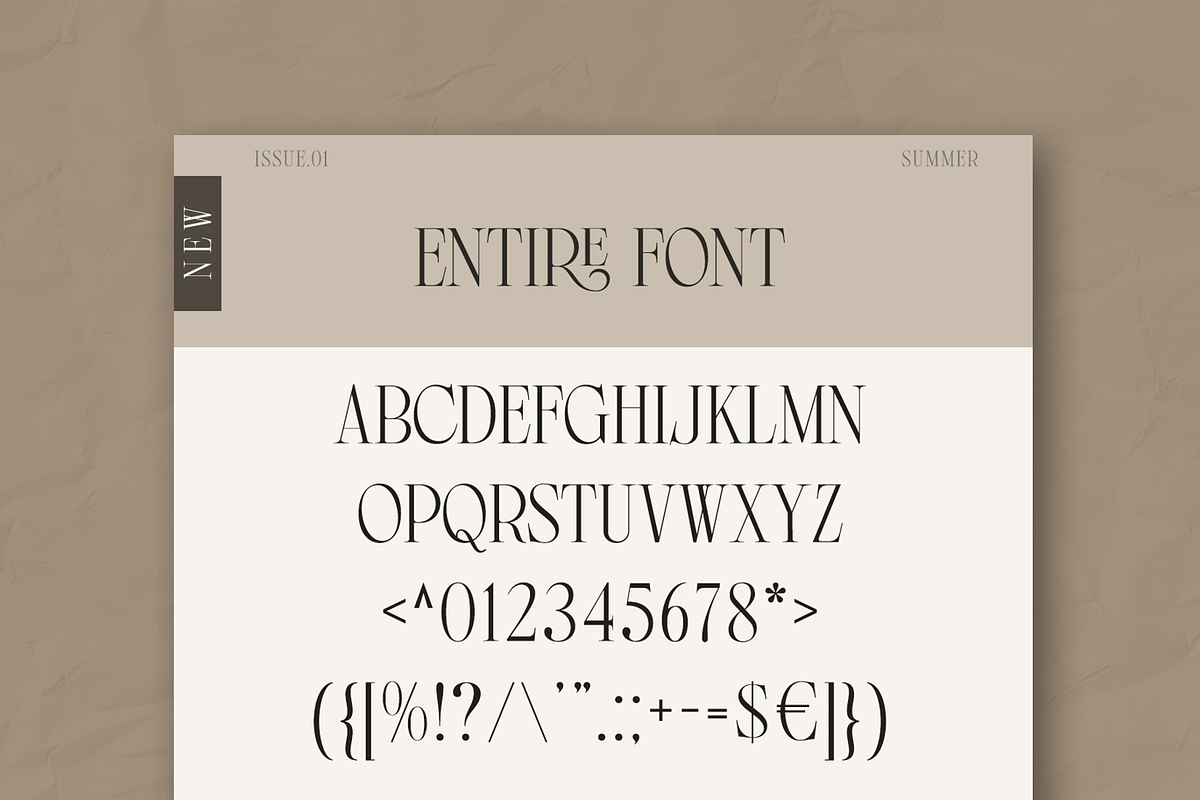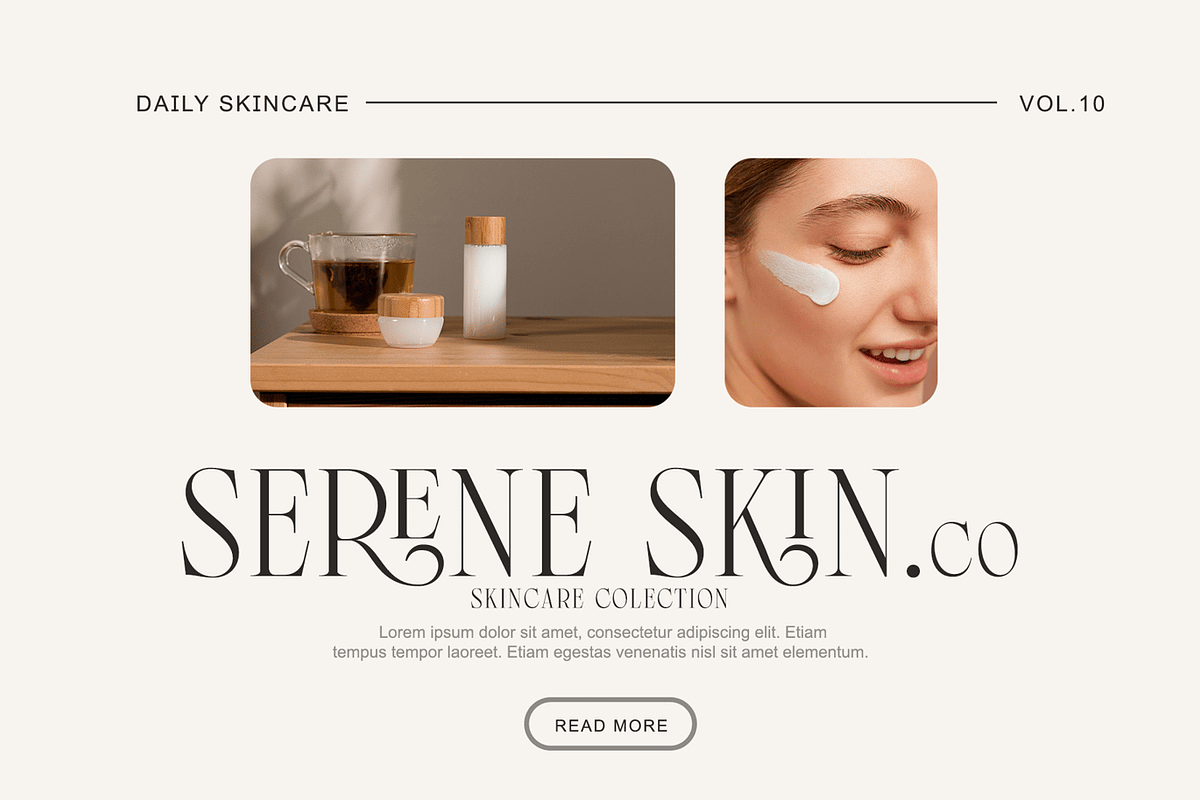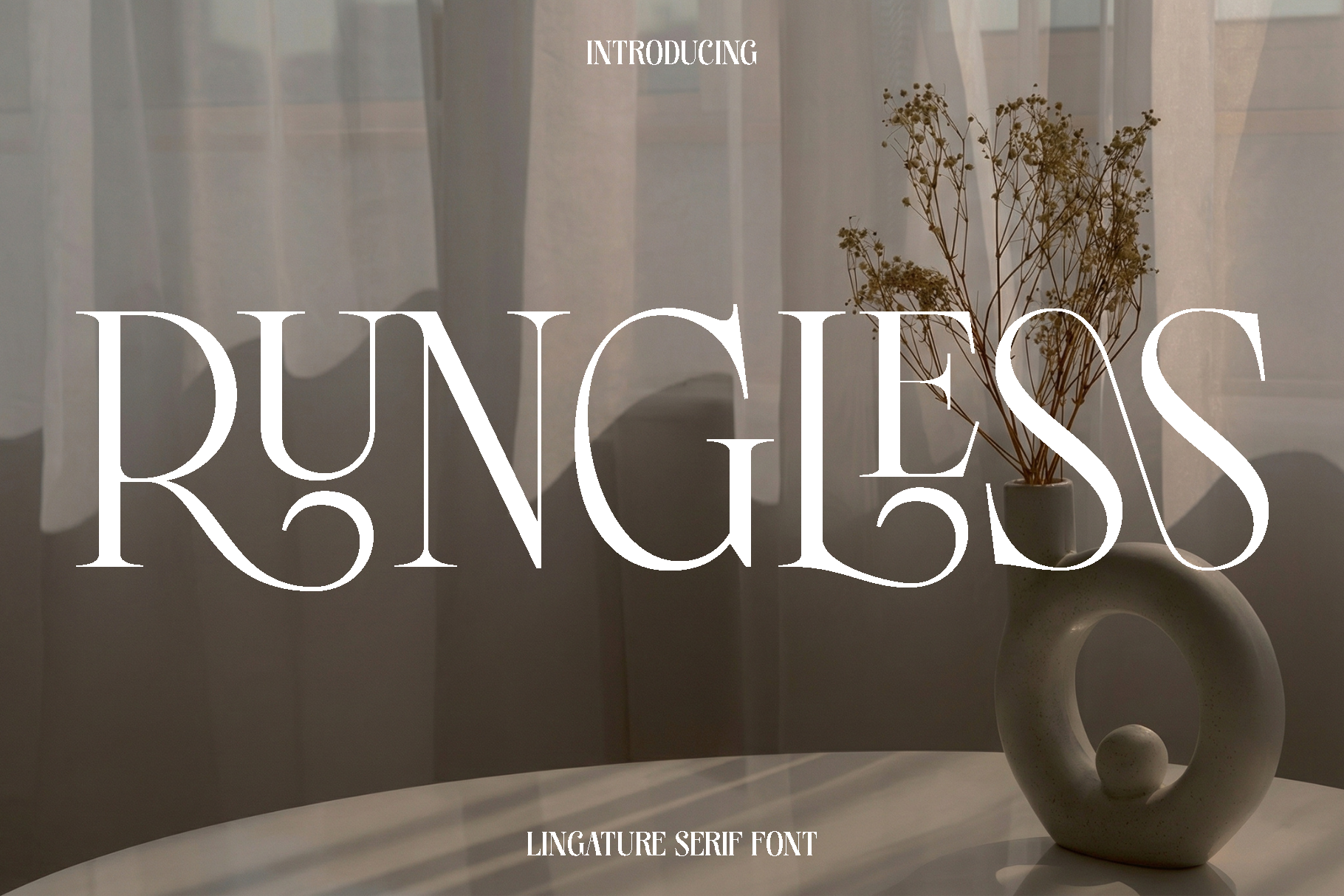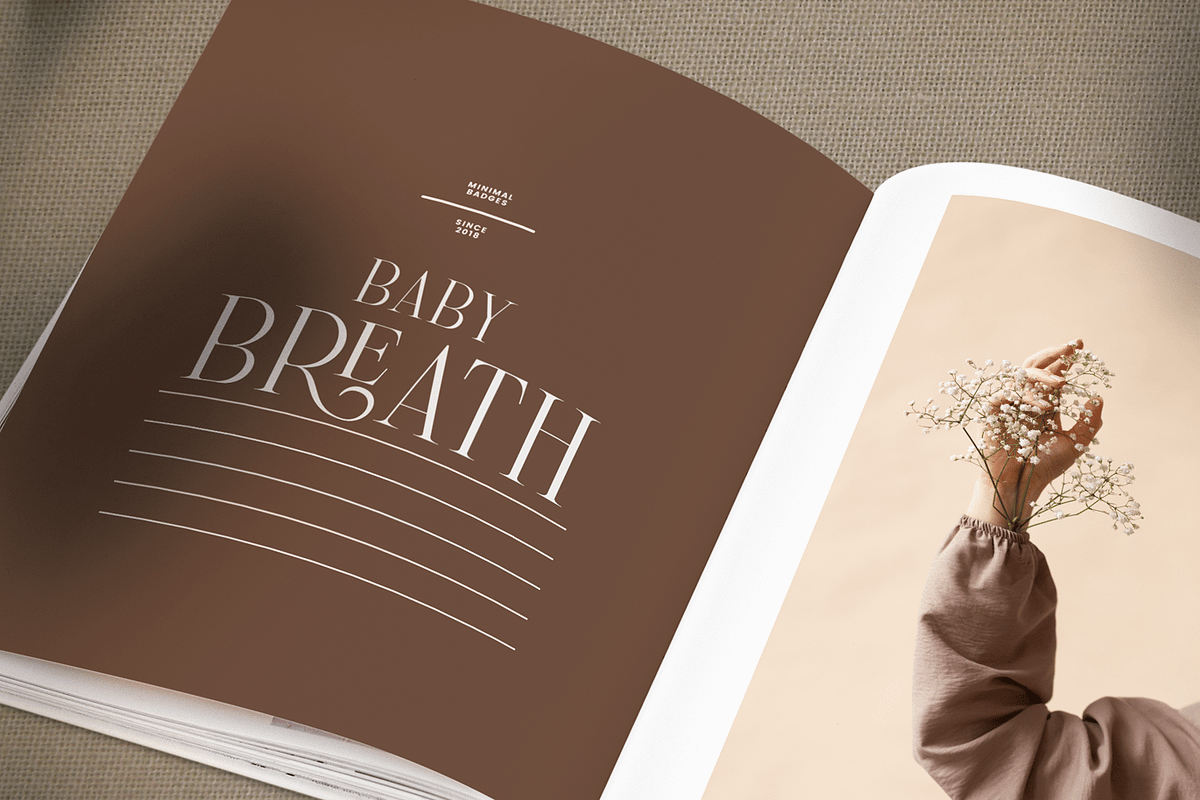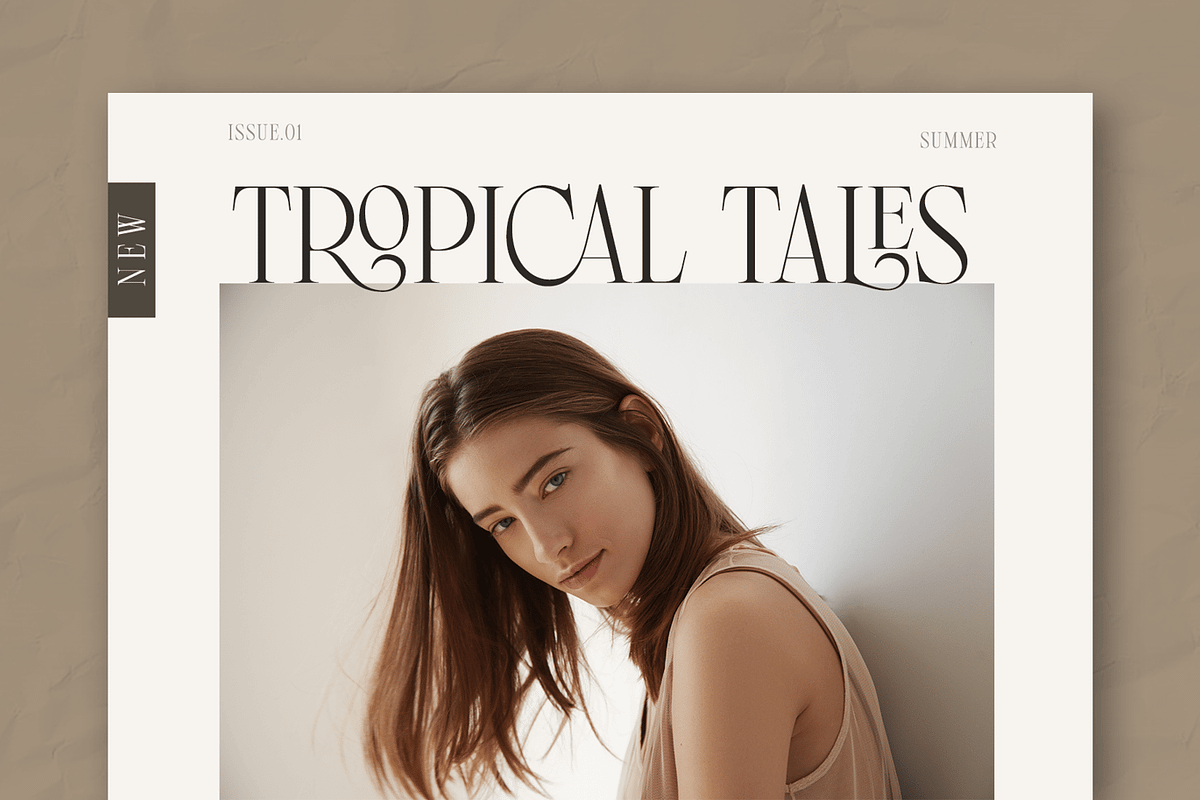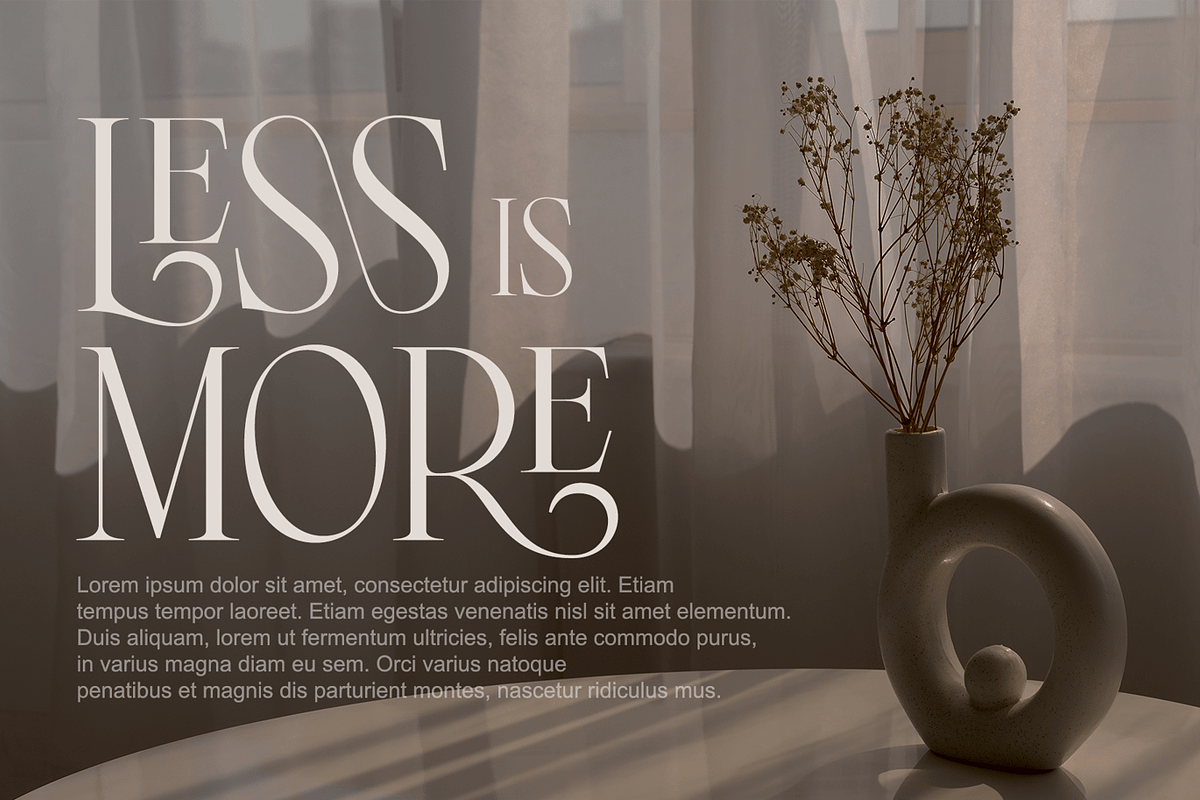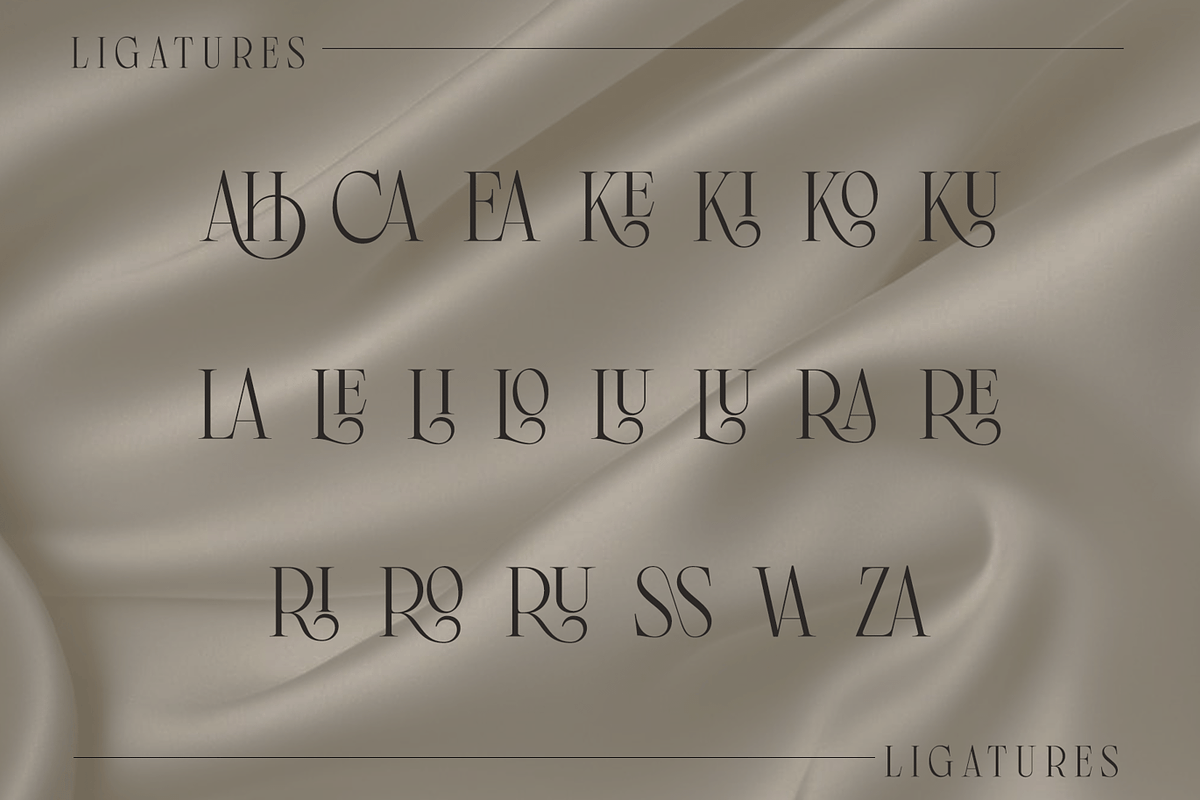
Rungless - Lingature Serif Font
Rungless is a thoughtfully crafted typeface designed to bring clarity, style, and versatility into a wide range of creative projects. Built with balanced proportions and clean letterforms, Rungless carries a modern personality that feels both professional and expressive. Its refined structure allows it to adapt seamlessly across different design styles, making it a reliable choice for designers who value both aesthetics and usability.
The font feels confident, approachable, and contemporary, giving your typography a polished look without losing warmth. Rungless shines in editorial layouts, books, magazines, branding, logos, photography overlays, quotes, blog headers, posters, and advertising materials. Whether used for bold headlines or body text, it maintains excellent readability while adding a subtle character that enhances the overall design.
Designed to perform beautifully in both print and digital environments, Rungless offers flexibility for creatives working across various mediums. Its clean rhythm and functional design make it suitable for corporate projects as well as artistic compositions. With Rungless, you can create layouts that feel cohesive, modern, and visually engaging.
Rungless Typeface Features:
• Uppercase and lowercase characters
• Numerals and functional glyphs
• Multilingual support
• Clean and versatile letterforms
Rungless is a dependable addition to any designer’s toolkit, offering a perfect balance of simplicity and personality to help your ideas stand out.